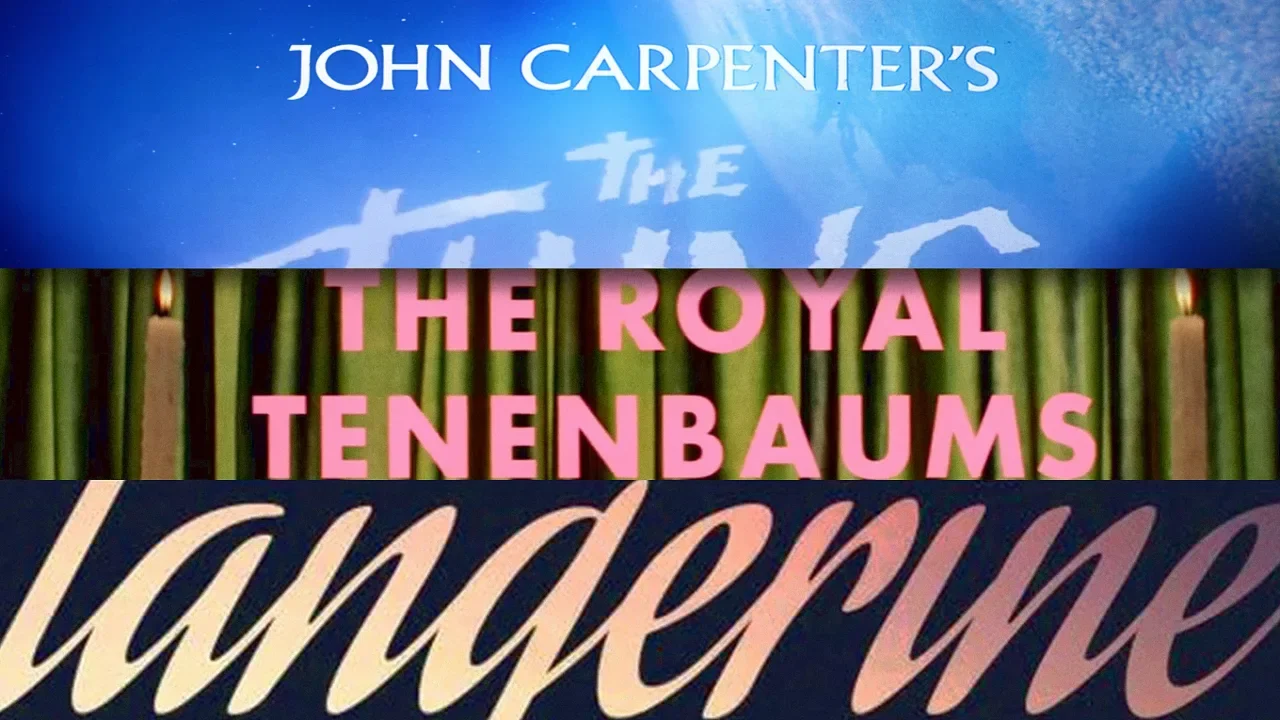
A love affair with a typeface? For these famous directors, type is part of their art
Some directors are known for their typographic flair—from the ultrawide tracking of Christopher Nolan’s film titles to Quentin Tarantino’s genre vernacular font and lettering selections.
But last week, as we reported on Sean Baker’s extensive use of Aguafina Script across his past four movies, we wondered: How many other directors have firmly embraced a single, singular typeface—and what does that typeface say about their films?
The first part is easier to answer.
“It is rare,” says title designer and Art of the Title editor-in-chief Lola Landekic. “It’s a very interesting choice. As a creator, you have to sort of commit to a specific aesthetic. And I think you also have to know yourself very well and know that there’s a throughline in all your work.”
That’s clearly the case when it comes to Baker and the directors below.
Sean Baker—Aguafina Script
Perhaps the most audacious thing about Baker’s use of Aguafina in the Best-Picture-winning Anora and his other films is the sheer amount of personality it contains. It is anything but a benign catchall face—but it is also a tonal fit that enhances the characters and themes at the heart of his most recent movies.
Landekic likens titles and title sequences to seasonings that can make or break a dish. While Baker’s work often deals with poverty and marginalized characters, the energetic Aguafina elevates everything all at once, providing a contrast to the common visual iconography around such subjects.
It has perhaps been a key to his films since Tangerine—and one that has carried over into marketing materials and more (a rare luxury when, for example, posters for the Men in Black films feature a bulky sans serif rather than Pablo Ferro’s far more interesting signature lettering that appears in the actual movies).
“It can be a difficult thing to achieve as a filmmaker, that kind of consistency of aesthetic,” Landekic says. “I admire anyone that can get that through the door because it’s hard these days where everything is created so piecemeal—often the distributor controls the promotional materials, and the filmmaker has very little say into how that gets to look.”
Moreover, as you peruse this list, you’ll notice that it is a veritable boys’ club—and there are reasons for that. “Women don’t get to make as many films, don’t get to make as many follow-up films, and don’t often get to have the level of control over their films that a lot of male filmmakers have,” Landekic notes. “So it’s a multipronged issue why we don’t have a lot of female examples in this particular category.”
Wes Anderson—Futura
A lot has been written about Wes Anderson’s thoughtful and intentional approach to type and lettering—but the face that made him famous was Futura, which branded the first half of his filmography (so much so that many considered it an aesthetic betrayal when he sidelined it for Jessica Hische’s title lettering in Moonrise Kingdom.) In Anderson’s masterpiece The Royal Tenenbaums, Futura was essentially a character in its own right, appearing not just in titles, but on buses, books and myriad places beyond.